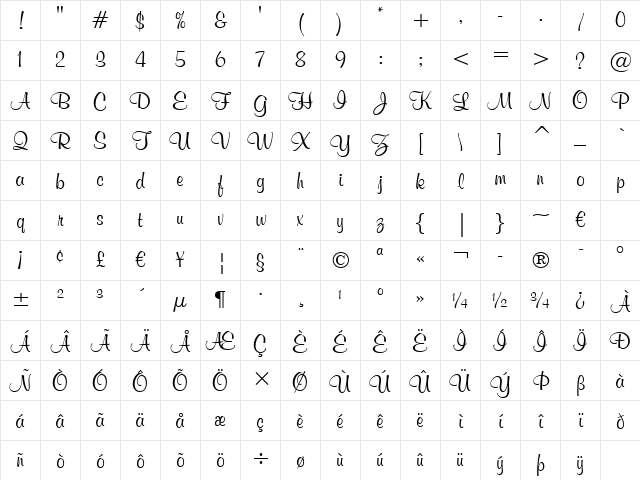
MurrayHill Bd BT Bold
Design Context for MurrayHill Bd BT
MurrayHill Bd BT is a composed and adaptable typeface that performs quietly and consistently across a wide range of design contexts. Its bold stroke weight gives it real presence on the page.
Pro Tip: Use MurrayHill Bd BT in both headline and body roles to test its range before committing to a single application.